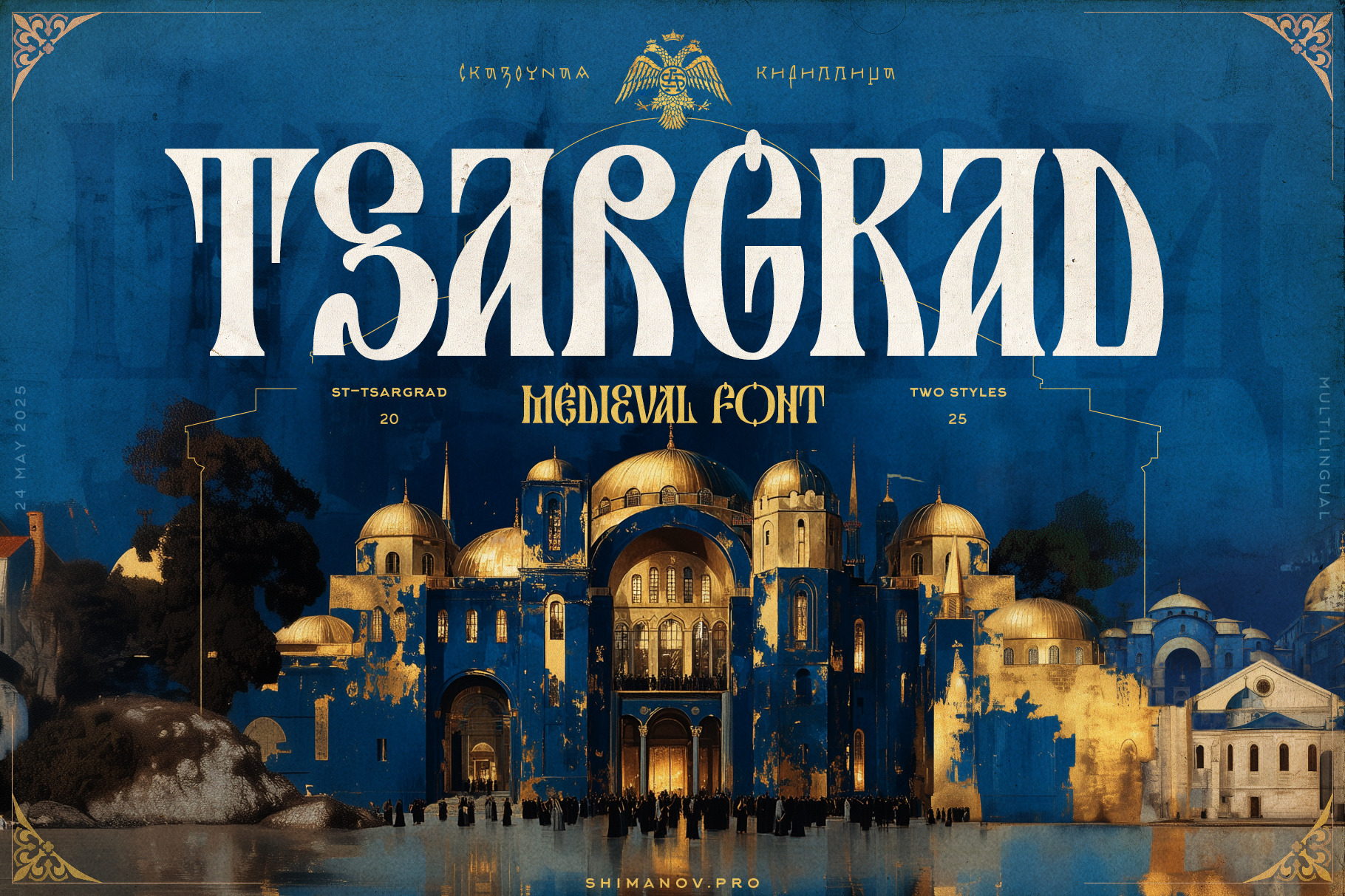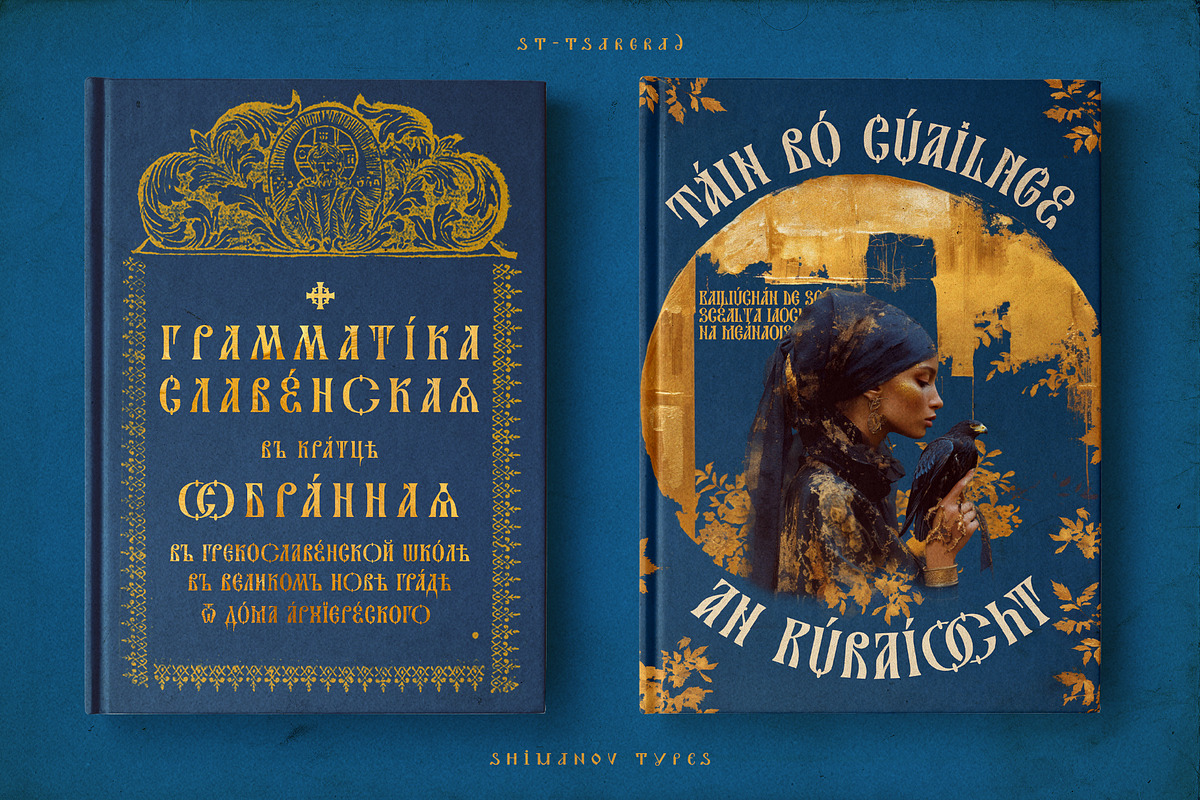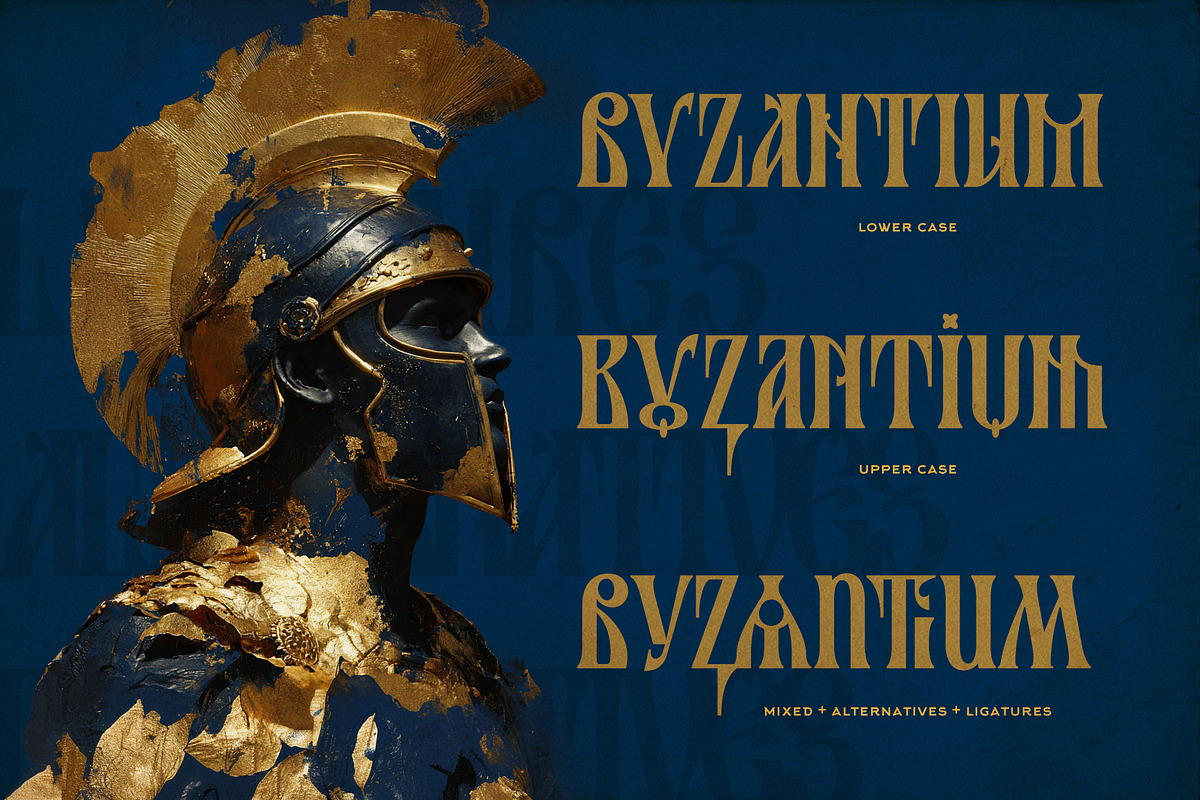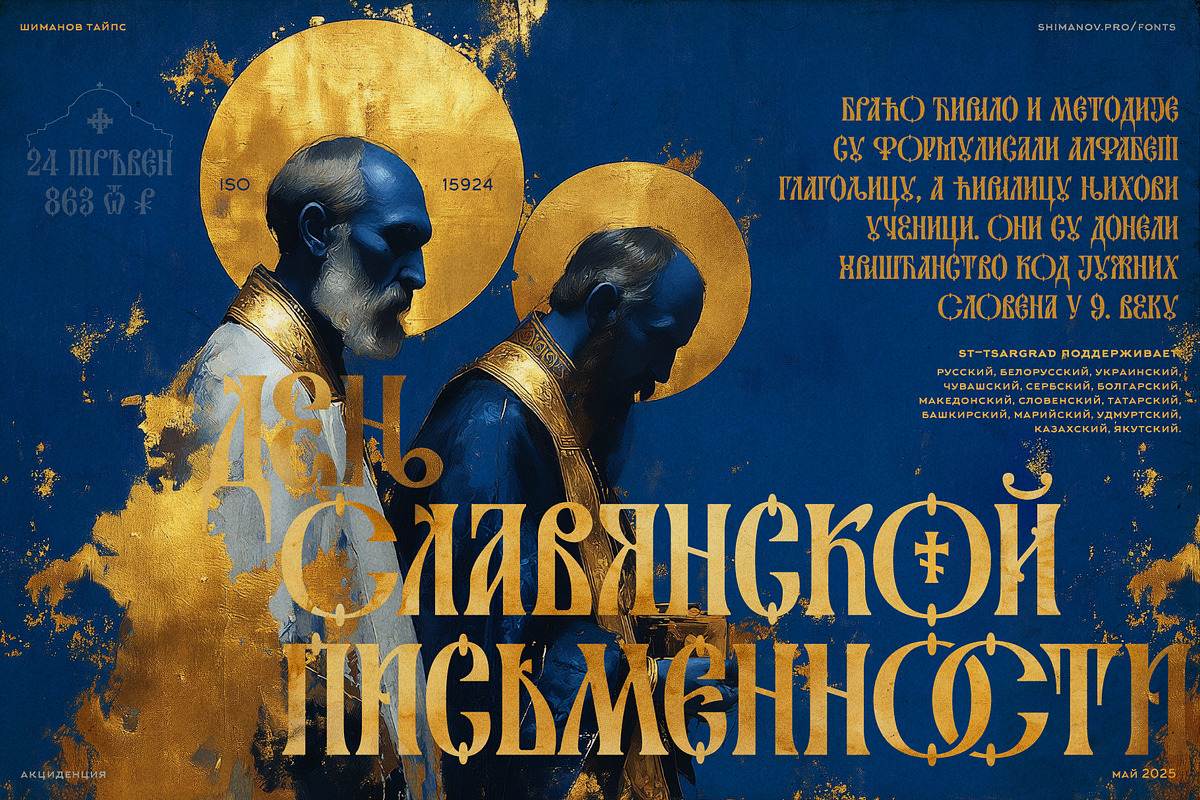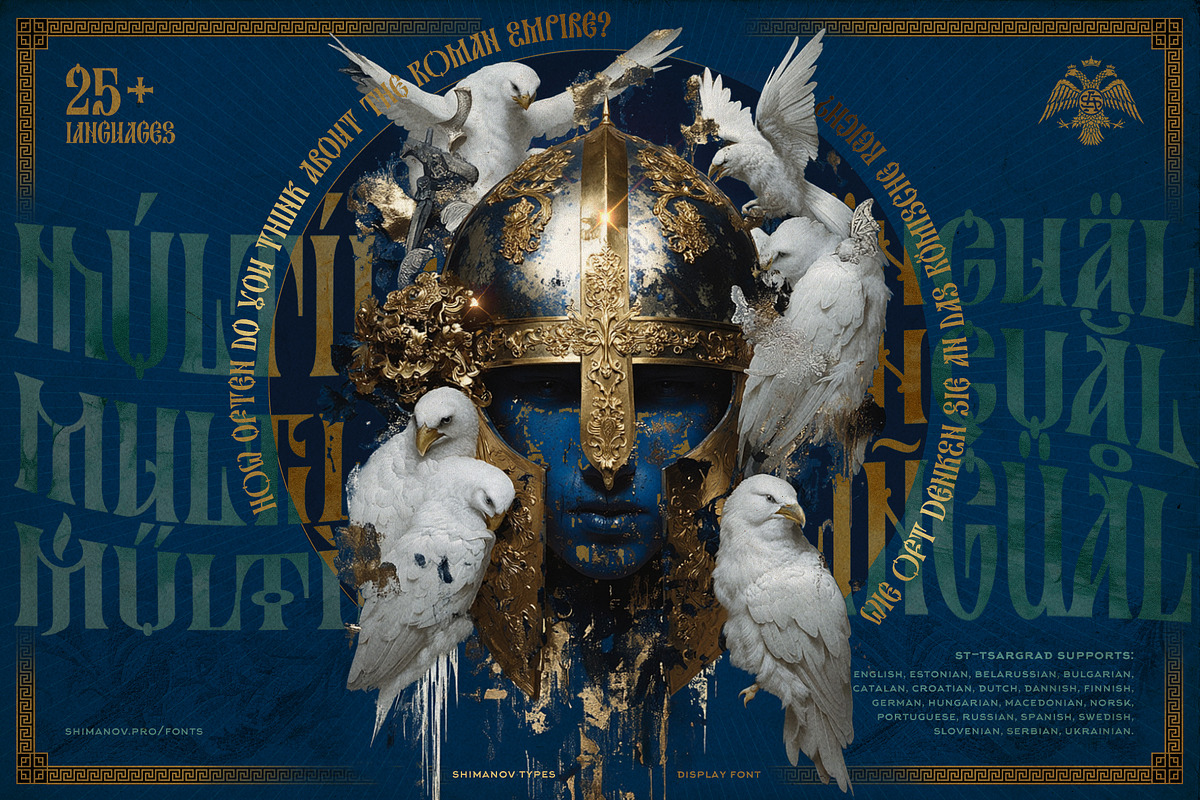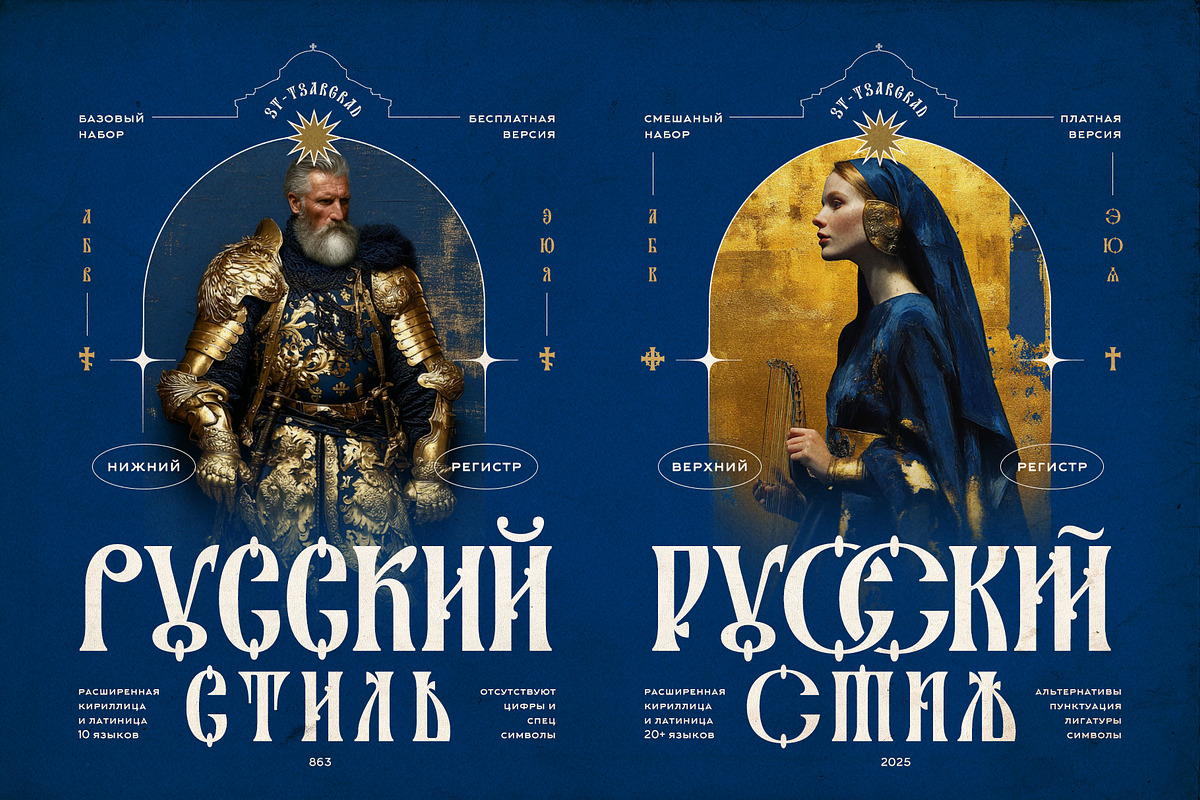
ST-Tsargrad medievil font
The medievil "Tsargrad" (King city - the slavic name for Constantinople) font. The font forms were spied on by Russian artists of the late 19th - early 20th centuries, and they spied these forms from an old Russian chronicles. But these are not historical letters, they are allusions to ancient Slavic ceremonial letters that were rethought by Art Nouveau artists, and for the second time now, in the postmodern era. The archaic is presented as a stylistic decorative component of a modern display font. As is usually the case with me, capital letters are a stylistic alternative to lowercase typesetting (i.e. you can and should mix typesetting within one word). In addition, there are alternative glyphs and ligatures, all to diversify the typesetting. The font is artistic, display. Do not use for typing large amounts of text. But you can (and should) play with letters. Support for 35+ languages (extended Latin and Cyrillic), basic punctuation, special characters.